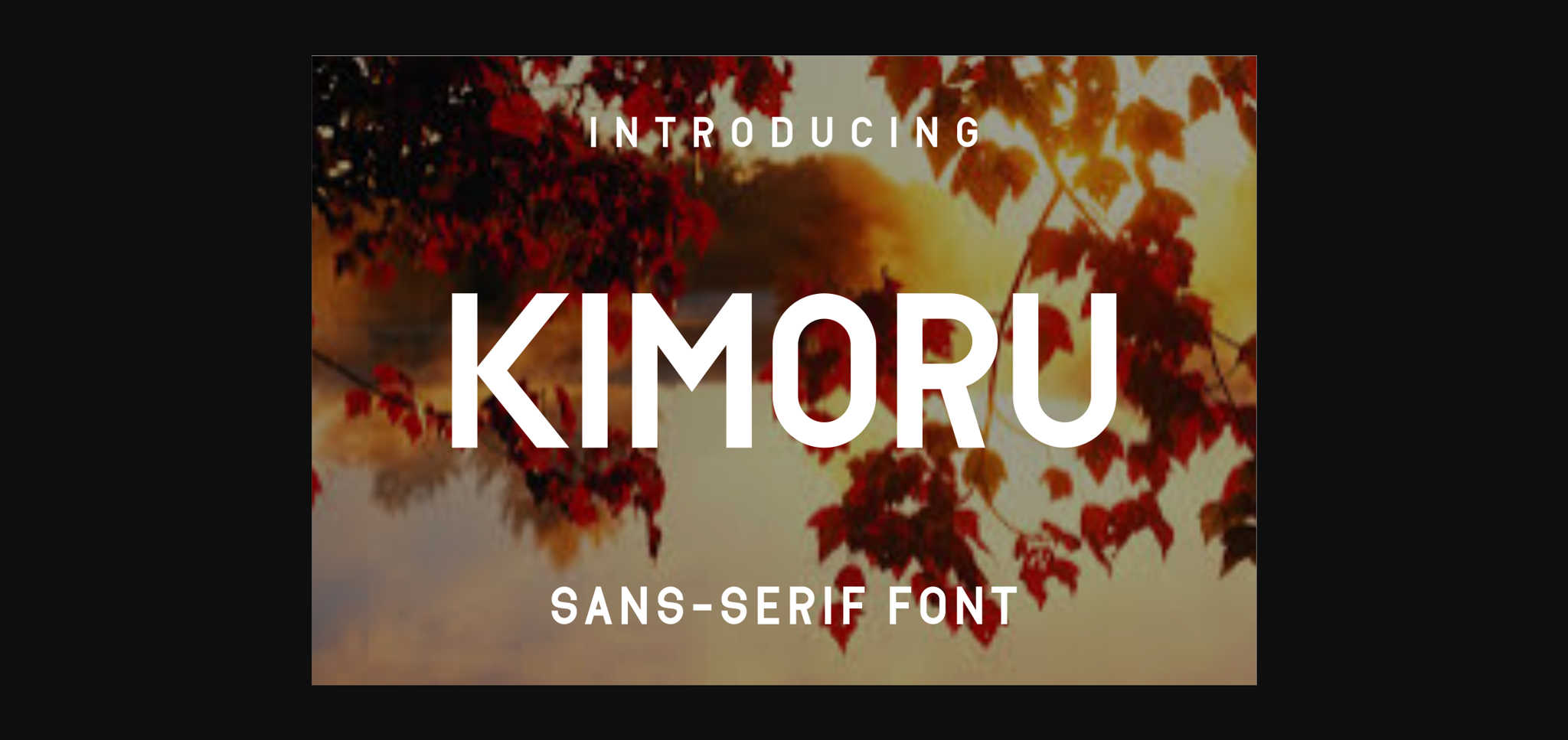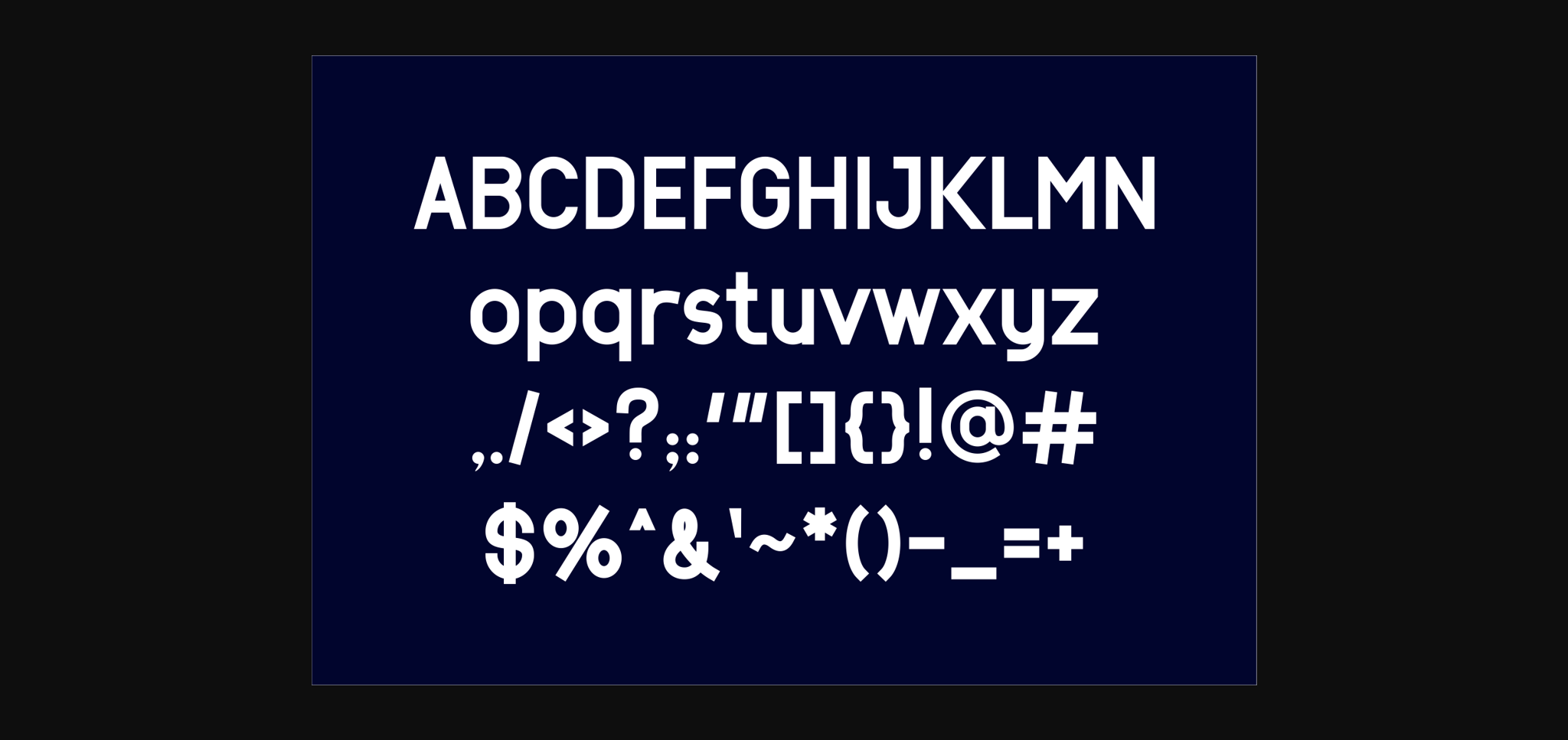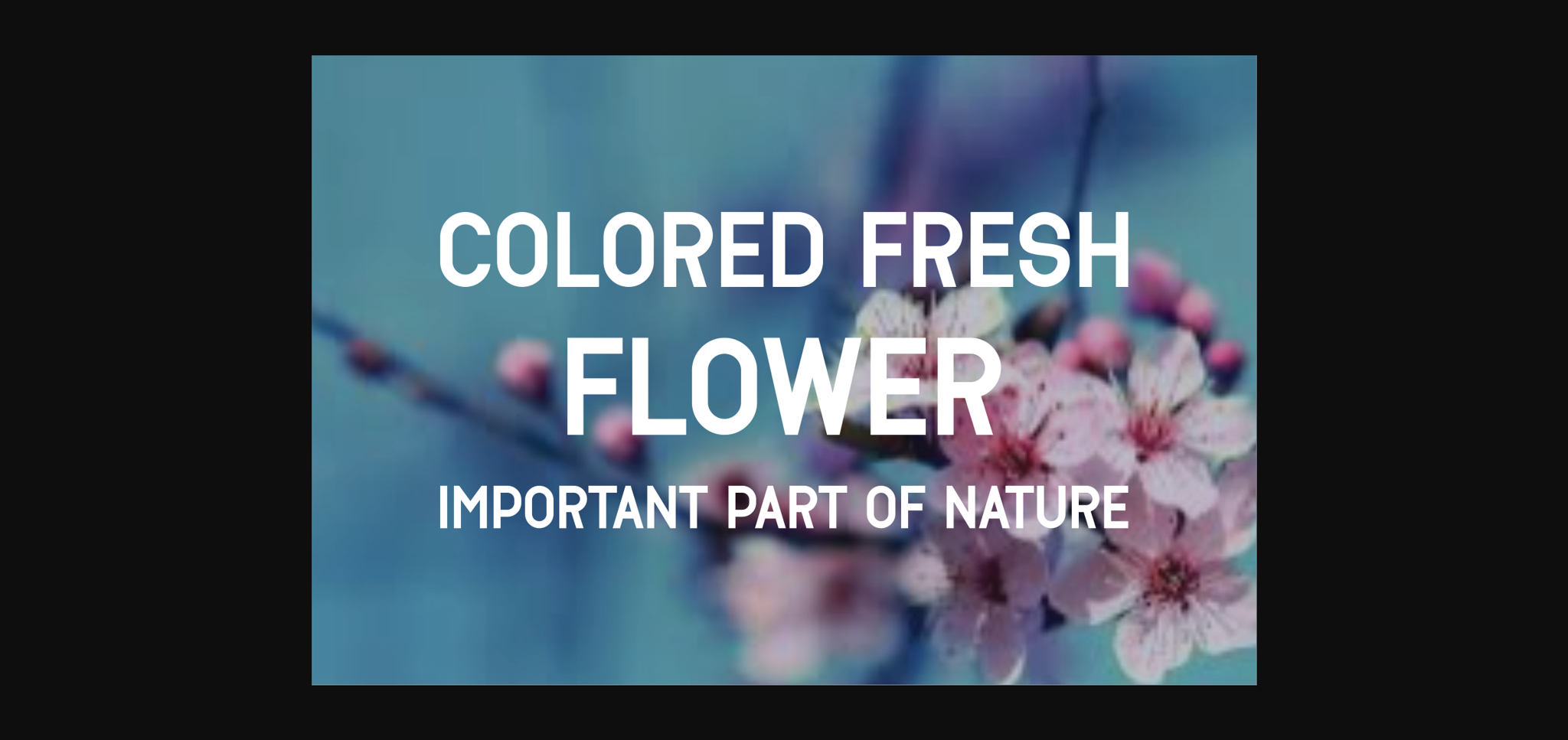
HomeSans Serif FontsKimoru Font Sans Serif Fonts Kimoru Font FacebookXPinterestWhatsApp 1 of 5 ... Kimoru Font Poster 2... Kimoru Font Poster 3... Kimoru Font Poster 4... Kimoru Font Poster 5... About Kimoru Font Kimoru is a cool and unique sans serif font. This font is neatly crafted and highly detailed. Whatever the topic, this font will be a wonderful asset to your font library, as it has the potential to enhance any creation. DOWNLOAD NOW People also explored Burning Font Aldebara Font Windswept Arrows Font Spooky Font Andiani Font Santuy Font Planting and Seeding Font Shine Himawari Happy Birthday Font 358 0 TagsKimoruKimoru Font Previous articleKinosy FontNext articleHerochi Font LEAVE A REPLY Cancel reply Comment: Please enter your comment! Name:* Please enter your name here Email:* You have entered an incorrect email address! Please enter your email address here Website: Save my name, email, and website in this browser for the next time I comment. Personal Use Free Trio Personal Use Free Read more about this font Rumaniaya Personal Use Free Read more about this font The Brighton Personal Use Free Read more about this font Covelia Personal Use Free Read more about this font BLOG Using Fonts in Digital Marketing: Tips to Strengthen Your Brand Identity In the realm of digital marketing, every visual element plays a crucial role in shaping a brand's identity, and fonts are no exception. The... To increase your work productivity, choose the most readable fonts. Best Fonts for YouTube Videos: Make Your Thumbnails Stand Out Where to Buy American Fonts Online in 2024